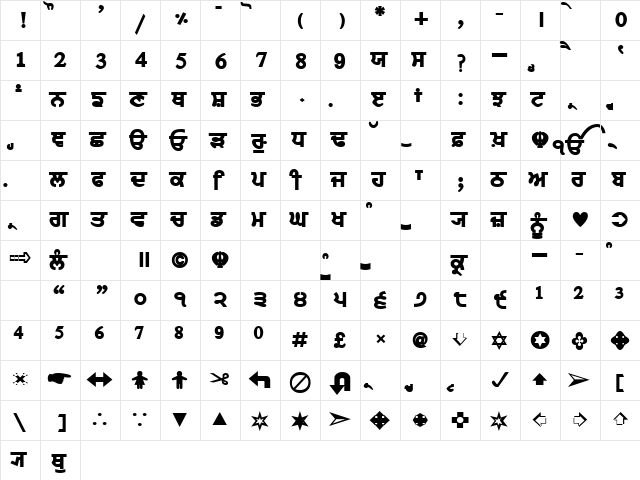
Janmeja2000WB ExtraBold Font Preview
Janmeja2000WB ExtraBold
Janmeja2000WB ExtraBold Font Details
Design Context for Janmeja2000WB Typeface
Janmeja2000WB offers clean, dependable letterforms without strong stylistic allegiance, making it a practical choice for designers who need flexibility. The heavy weight commands attention and anchors typographic hierarchies.